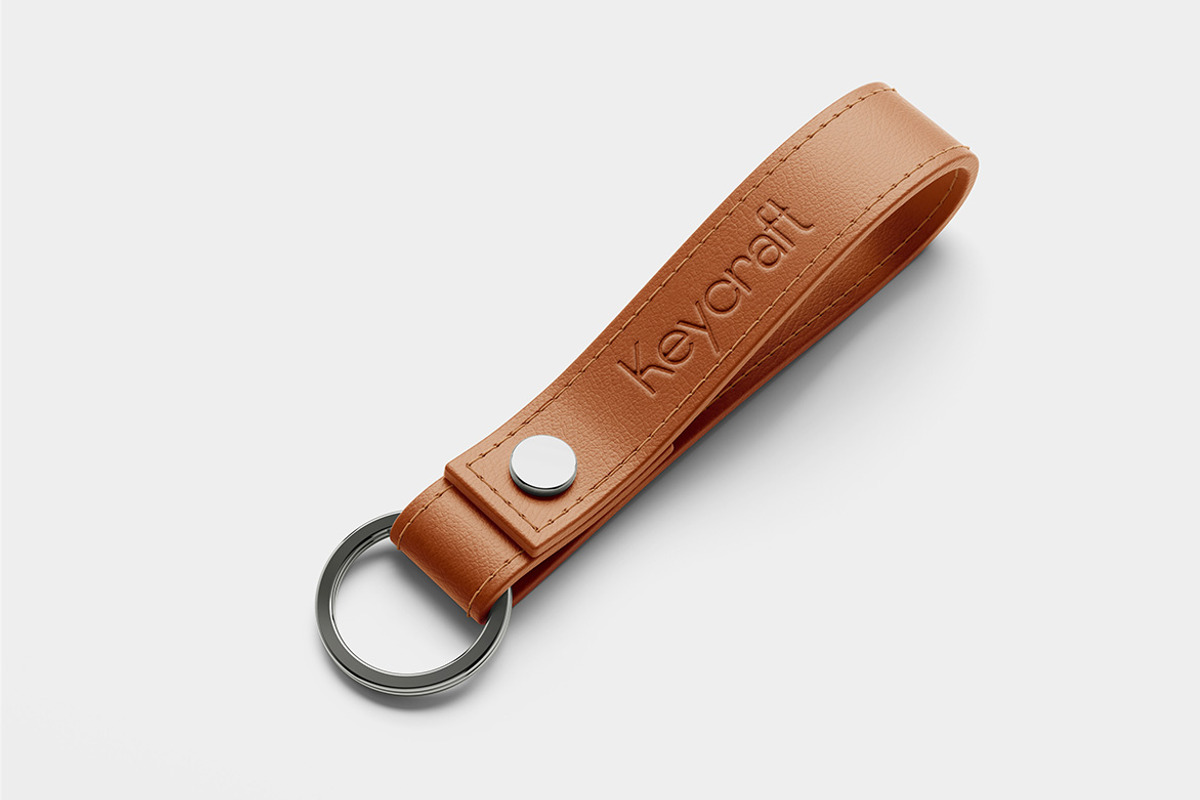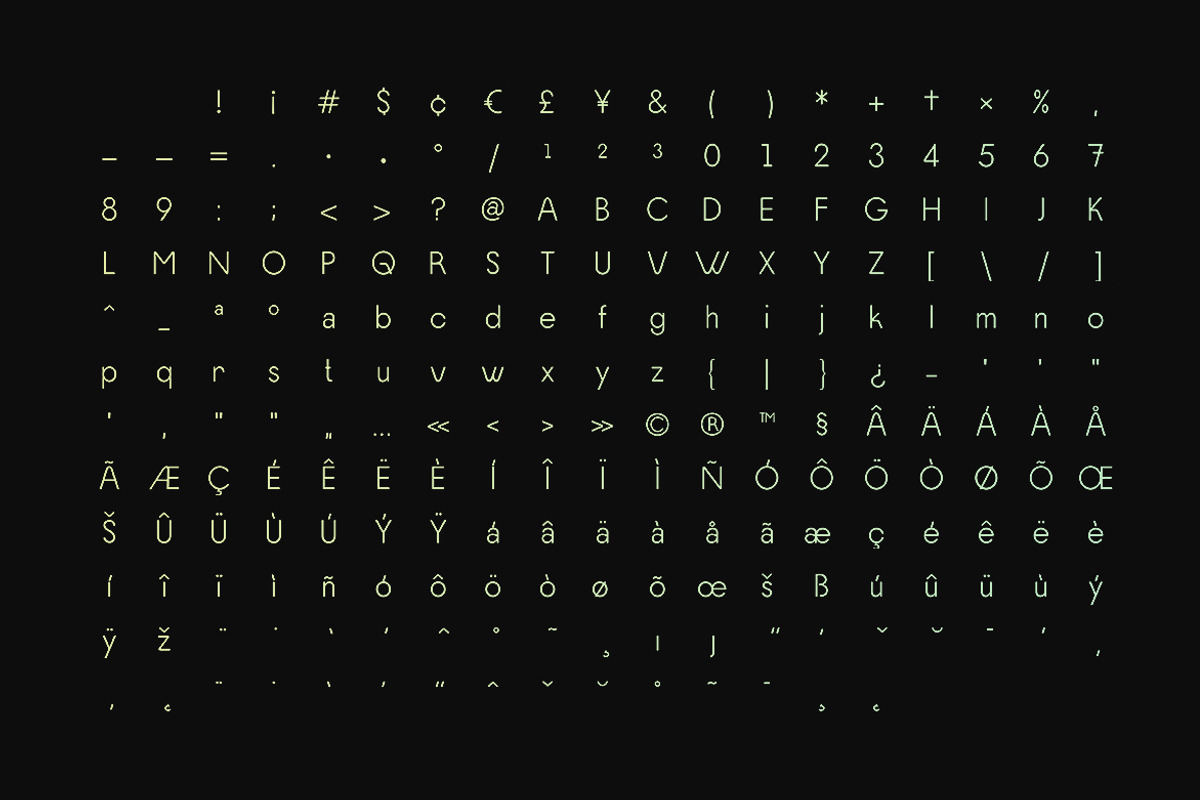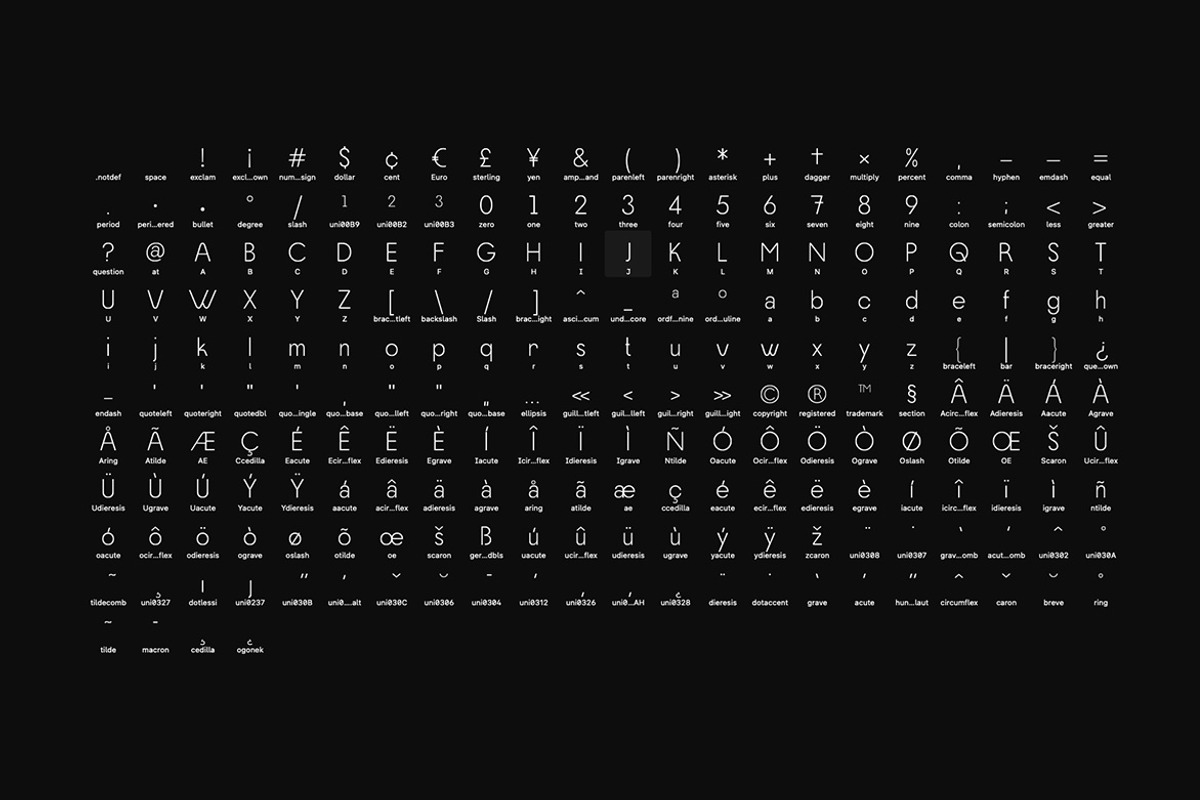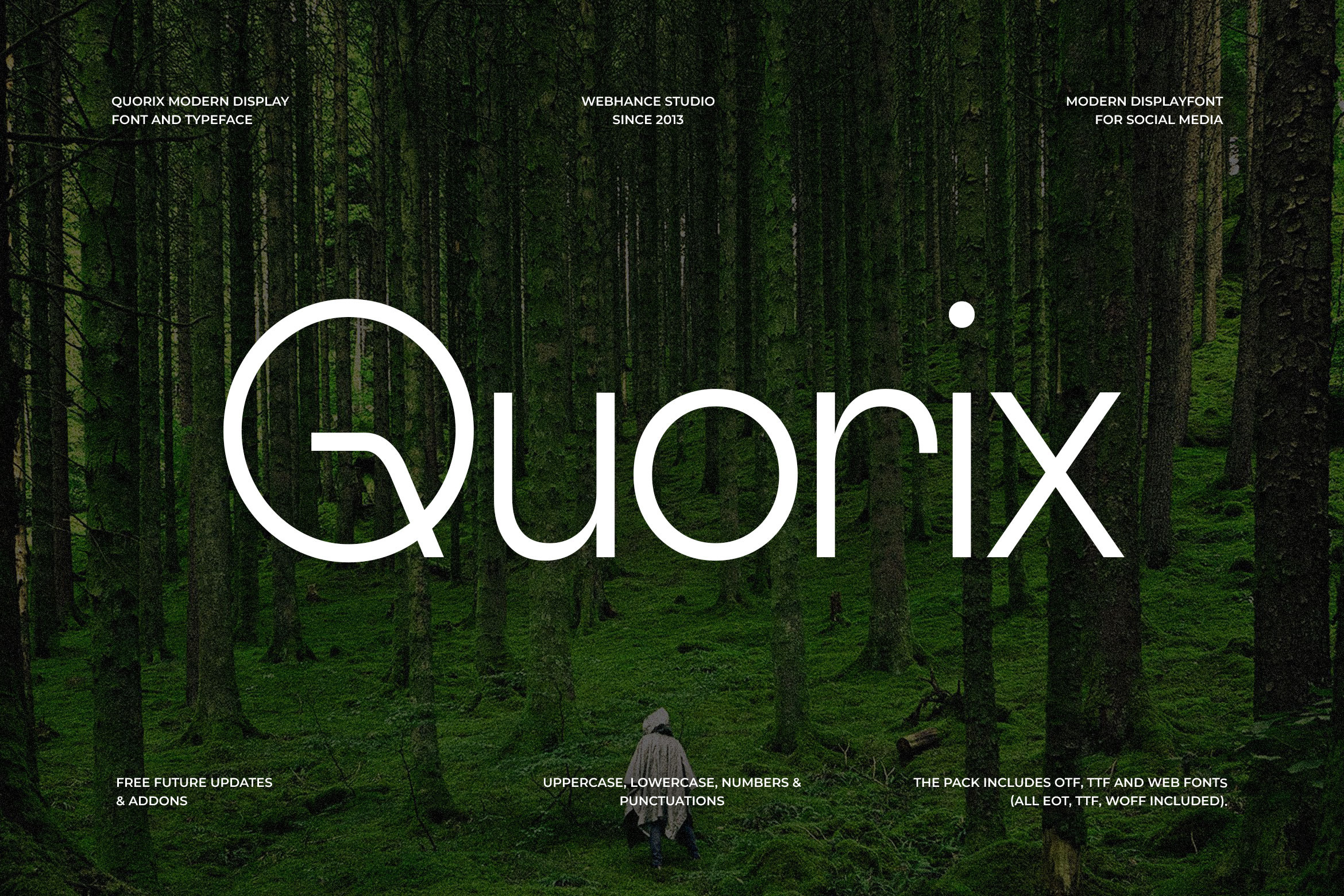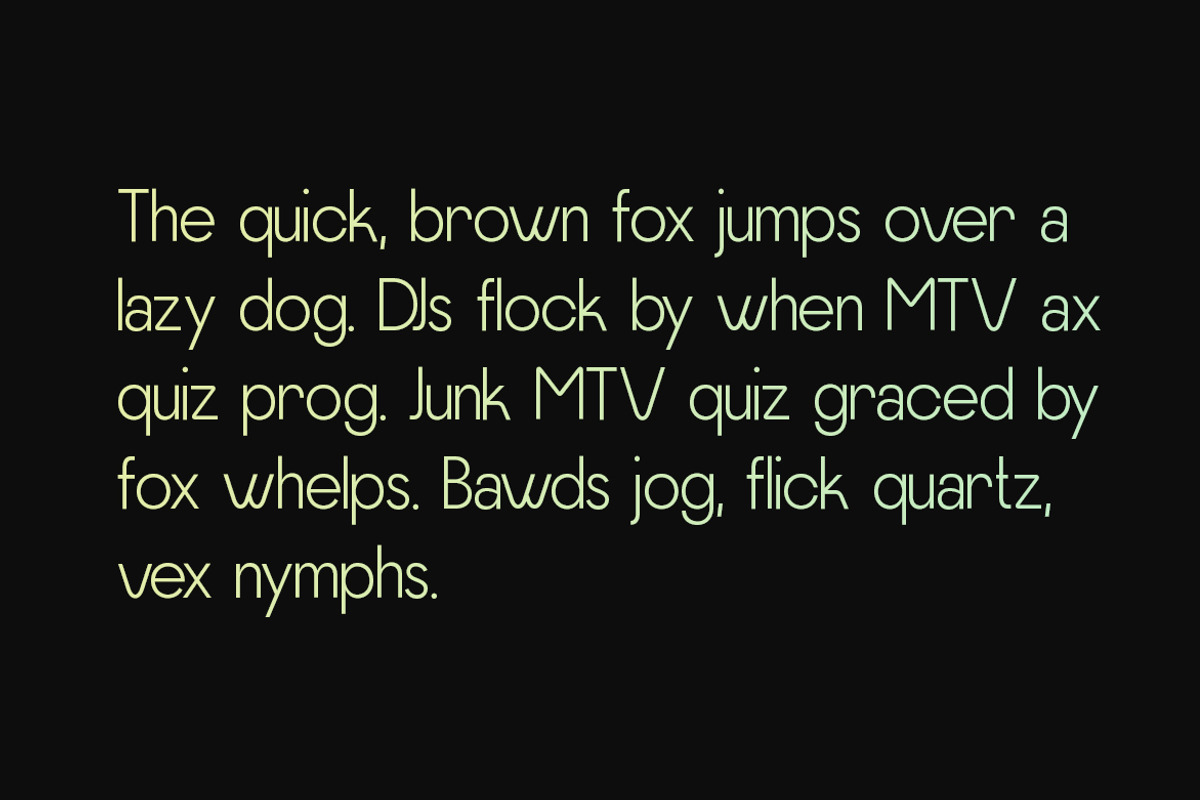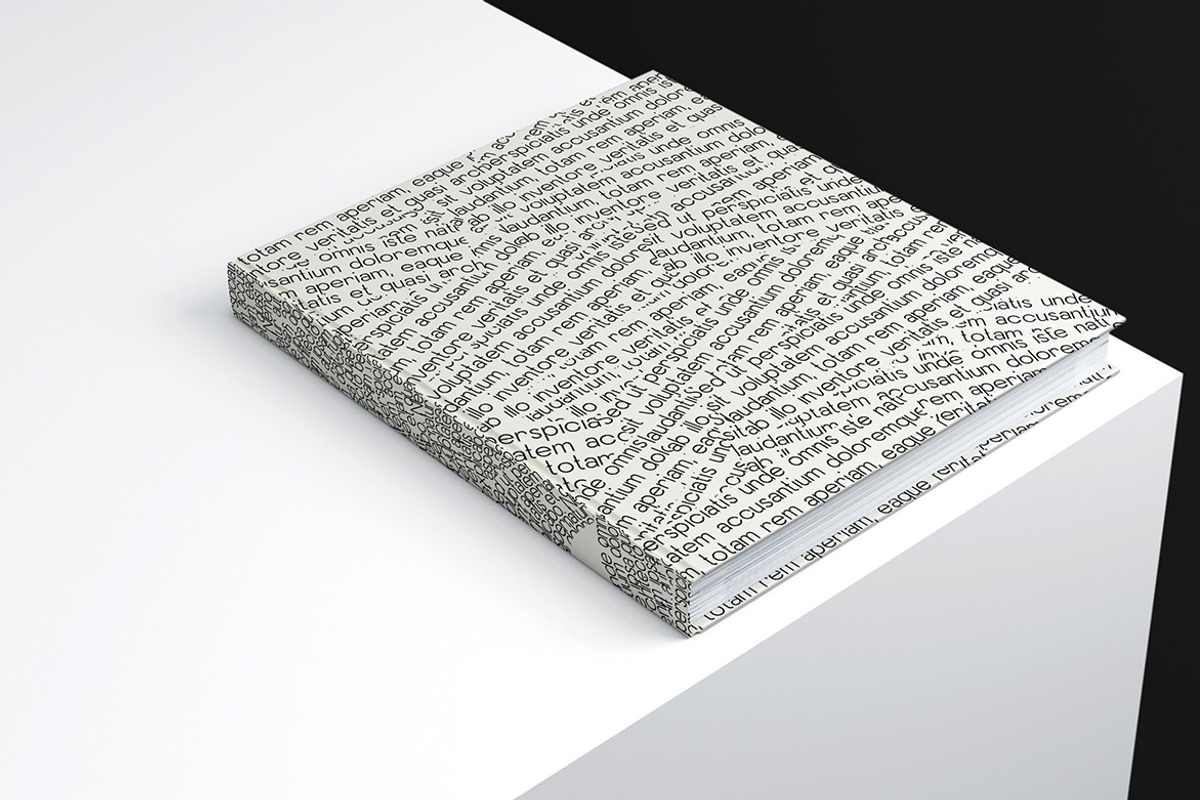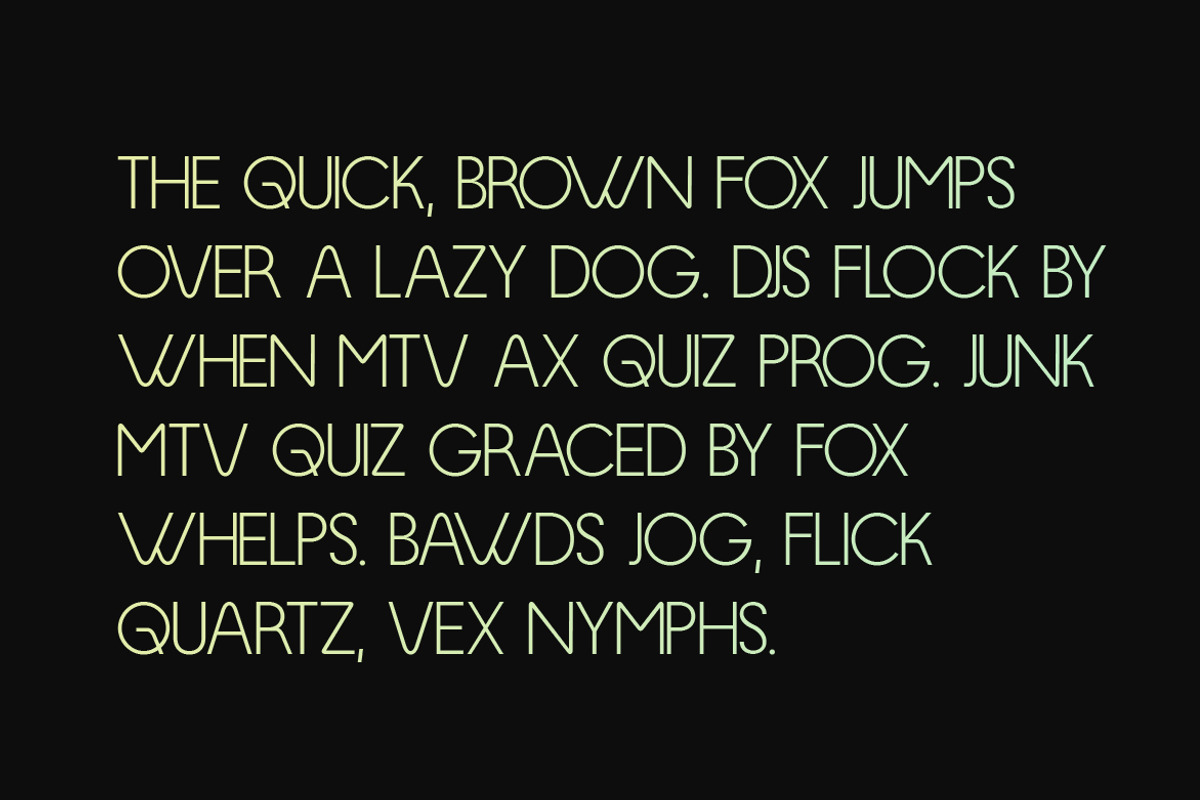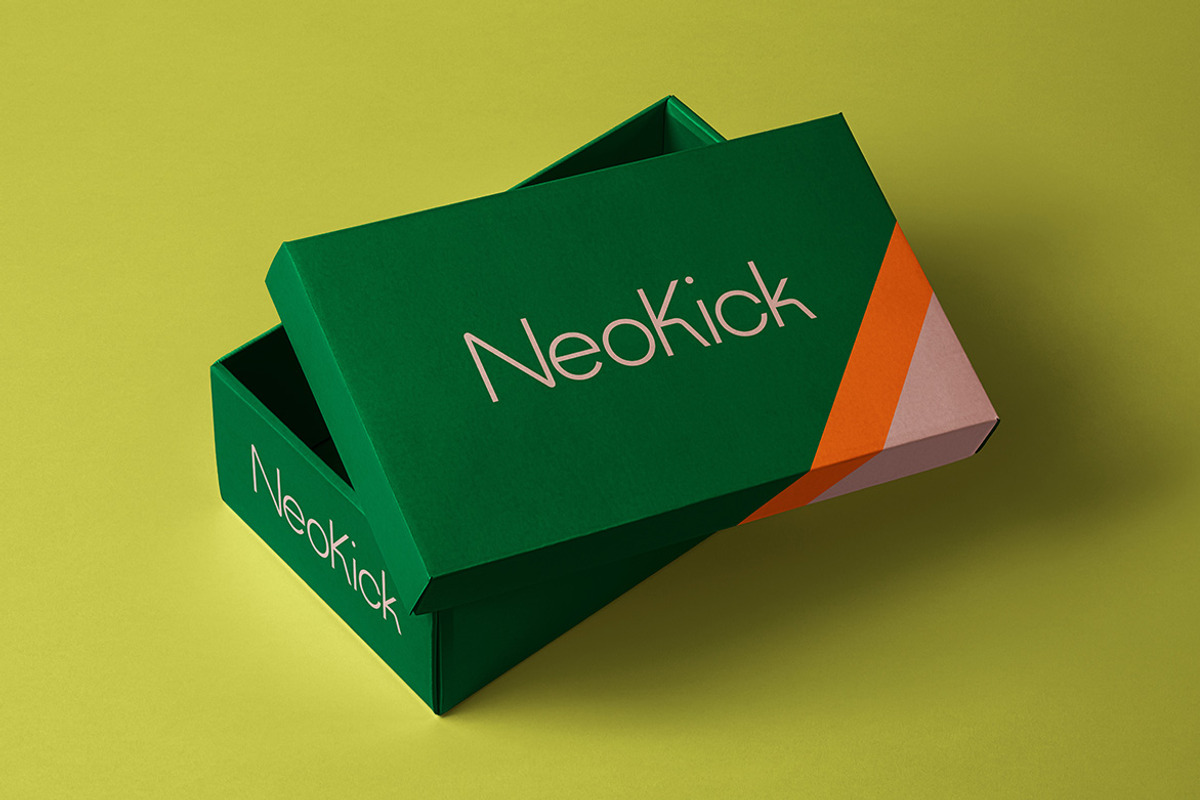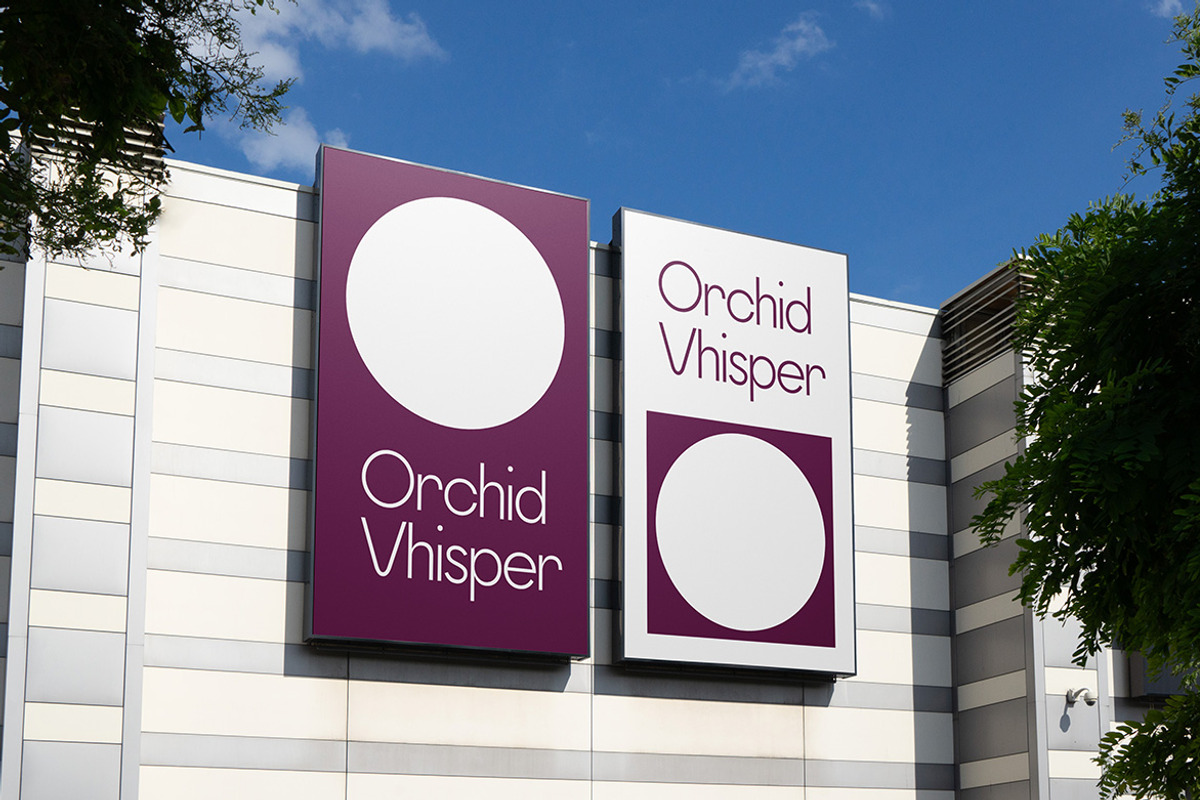
Quorix - Modern Display Font
Quorix is a clean and versatile sans-serif typeface, designed with simplicity and elegance in mind. Currently available in a single weight, with more styles on the way, it’s perfect for any design project that requires a professional and modern touch. Quorix offers exceptional readability and a refined aesthetic that will bring sophistication to your work.